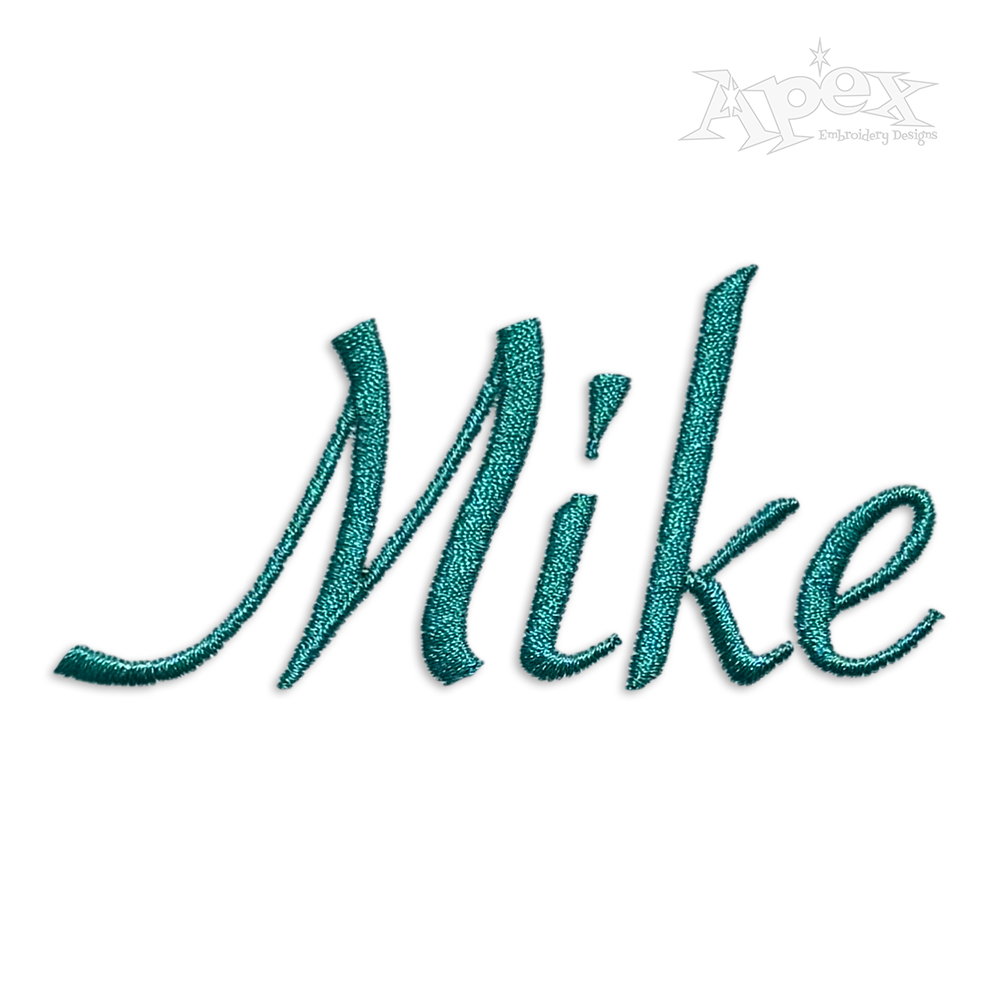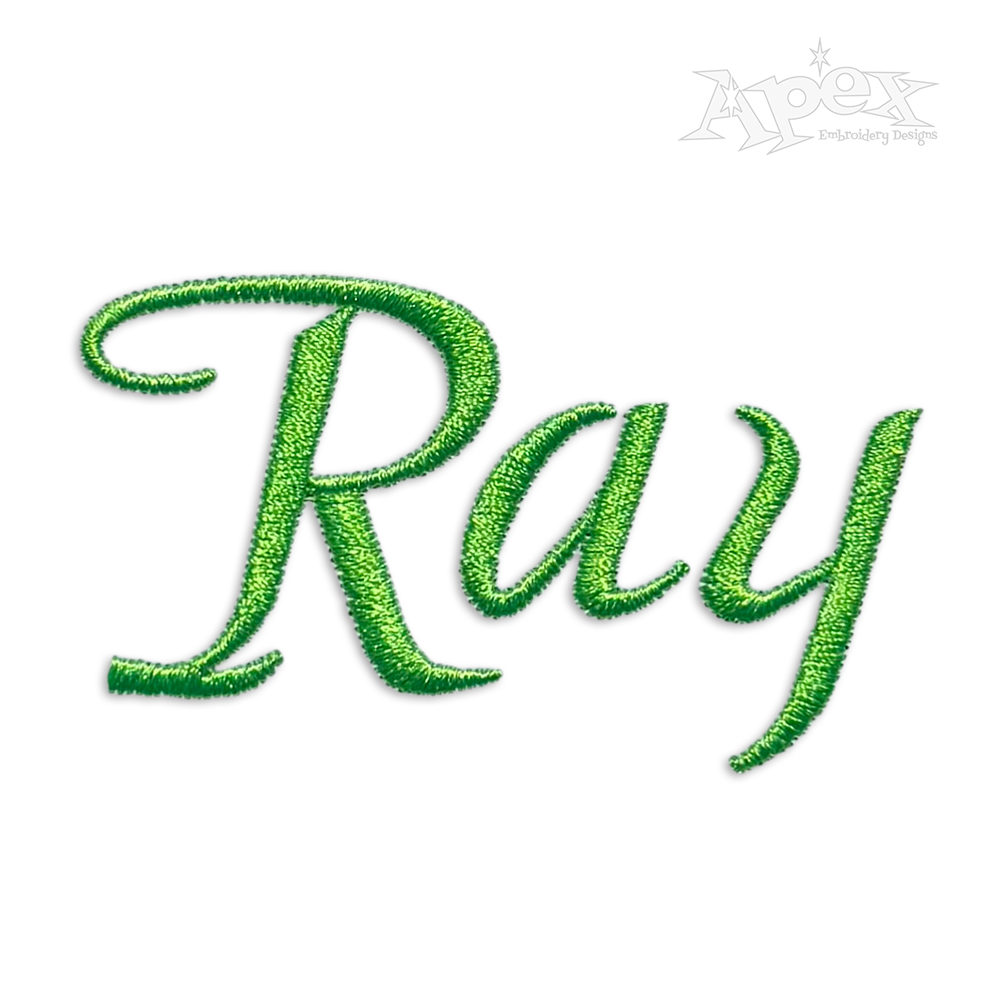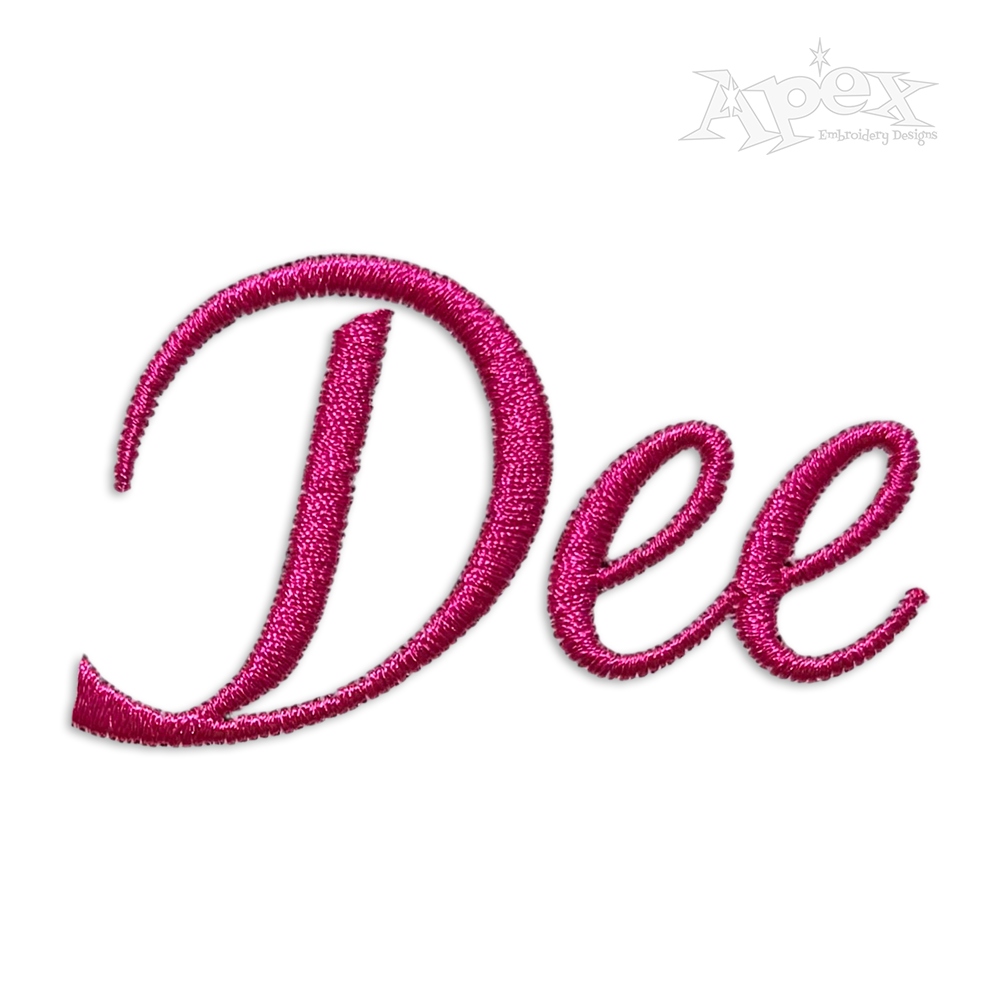
Victoria Script Embroidery Font
Create fancy style matching names with this Victoria Script set. Clean readable university brush script embroidery set is perfect for customizing hats, linens, towels, baby gifts, tote bags, and more. Included All Letters A-Z Upper and Lowercase files.
Victoria State Script embroidery font collection includes complete size sets with cursive script letters designed for creating stunning personalized names. Each font comes professionally digitized for smooth stitching and excellent embroidery results.
- Victoria Script Script Font